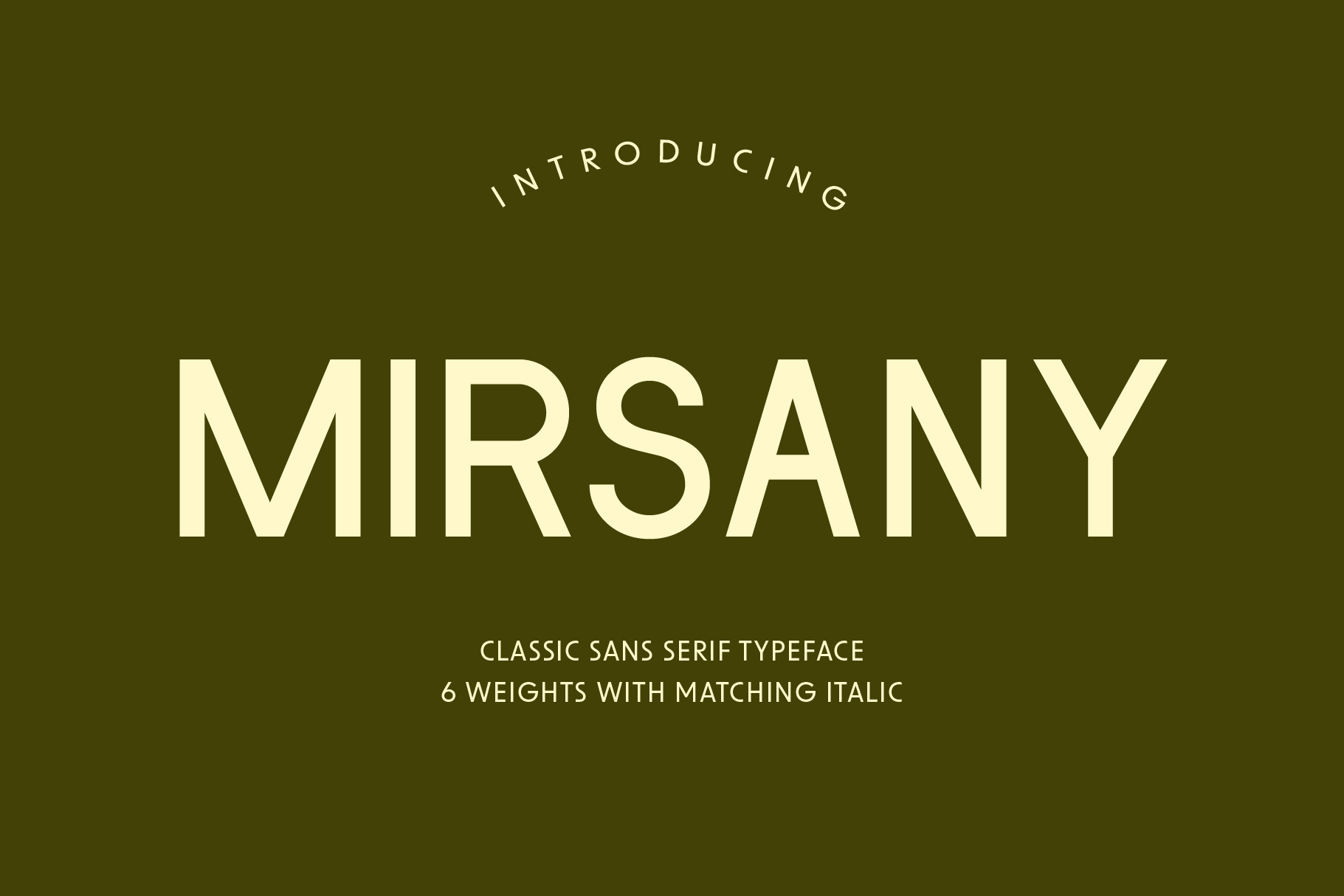
Mirsany - Sans Serif Font
Mirsany Font is a very perfect choice for your logos, headlines, and body text alike. With clean line and strong characters, you can easily create a cohesive look for your brand or project. Plus, its simplicity makes it easy to read and comprehend, so you can be sure your message is getting across loud and clear.
Mirsany Font comes with 6 weights and includes with matching italic
- Thin
- Light
- Semi-Bold
- Bold
- Black